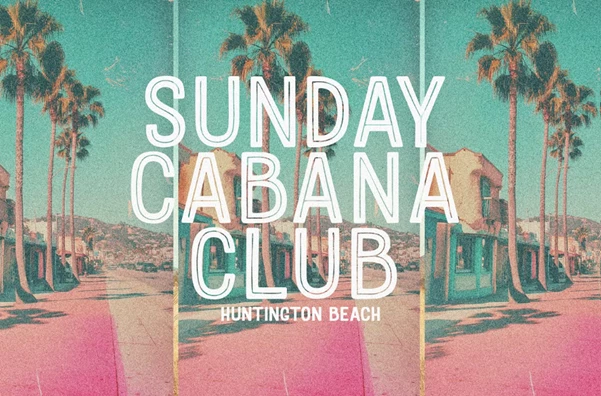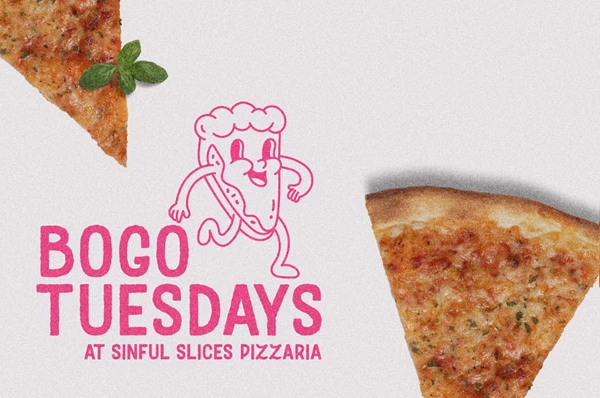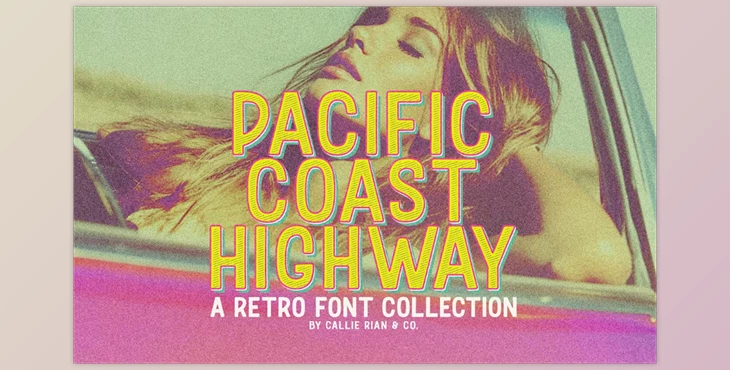
Pacific Coast Highway Retro Fonts:
The collection comes with a set of 12 typefaces that can be used for several retro, large-scale print projects like magazines, advertisements, and even branding. The typefaces offered in the Pacific Coast Highway Collection feature different styles such as Regular, Dots, Engraved, Inline, Rustic, and Slanted, all of which are provided in TTF and OTF formats.
"Pacific Coast Highway Retro Fonts" Samples: